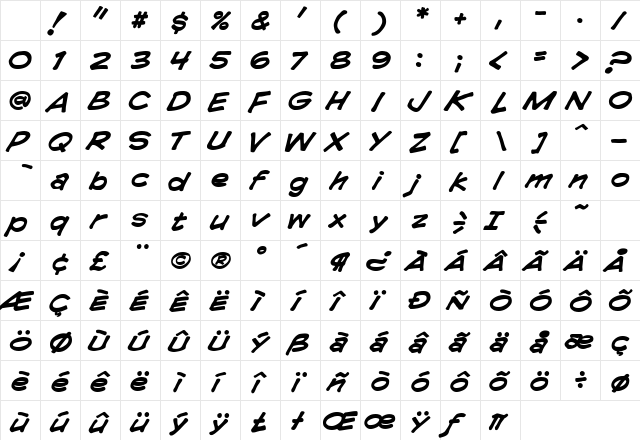
Complete CC Comicrazy Bold Italic glyph index. Displaying only characters natively supported by CC Comicrazy Bold Italic font.
CC Comicrazy has an approachable, lighthearted character - its loose, expressive forms are well-suited to children's content, casual branding, and fun-first design. The slanted form adds forward momentum and visual energy.
Font Pairing: Pairs well with a rounded or humanist sans for body copy, maintaining the friendly tone without relying on CC Comicrazy to carry extended reading.
Pro Tip: Use CC Comicrazy at larger display sizes where its expressive character can land. Pair with a clean, simple sans for body copy to maintain readability.